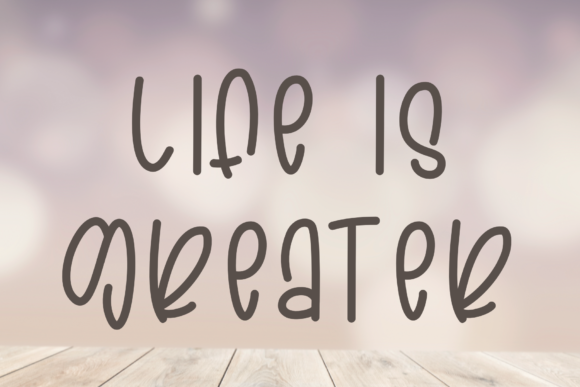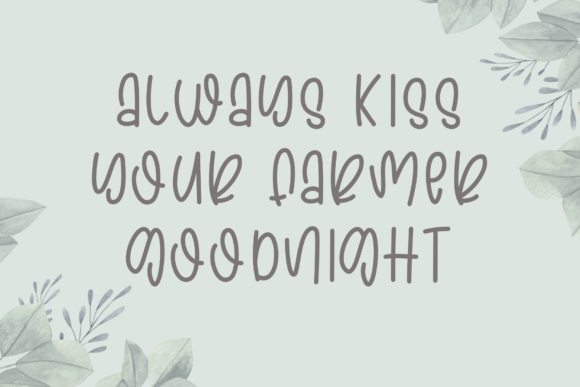
About Welcome to Our Farm Font
Welcome to Our Farm is a cute and sloppy handwritten font. Trendy and sweet, this font is ideal for any informal and play related design you wish to create!